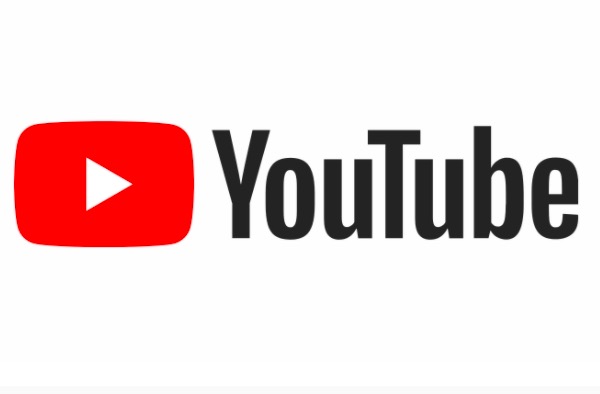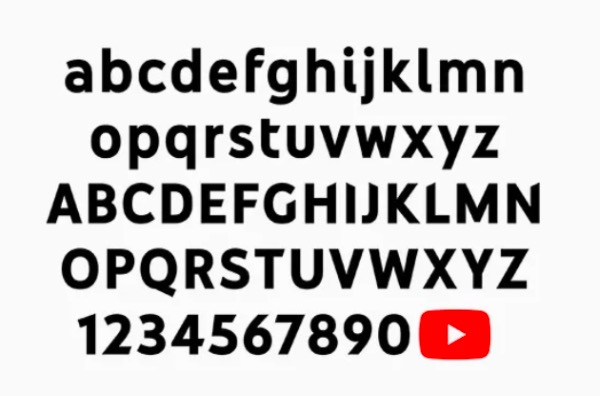
Youtube is a famous video social network all over the world. And it’s a great social is owned by Google Inc. Youtube Sans font is a simple and casual sans serif typeface with an undeniably neat feel. Do you know, Youtube logo font is one of the most popular Sans Serif fonts for many design purposes.
Youtube font is very perfect for product packaging, T-shirt designs, book cover designs, branding projects, invitations, logo, product designs, advertisement, watermark, social media posts, and more.
Youtube Logo Font